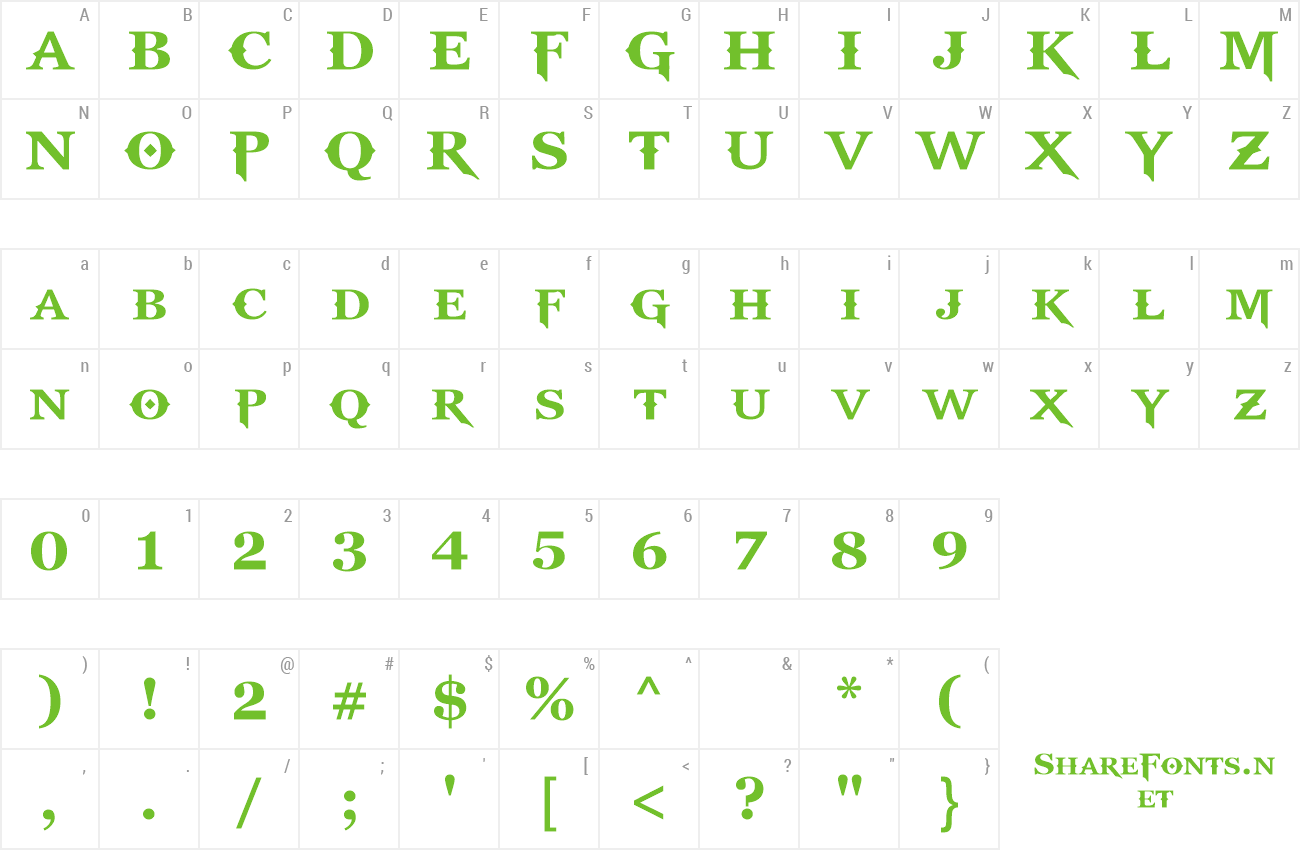
God Of War Font
God Of War Font - The lettering of the logotype is very similar to a font called god of war. This is the new and improved version of my god of war font replica! Web this font is not the original/official god of war font. You can download and use the font free for personal projects. Web god of war is a gothic, modern font. Click now to create a custom image with your own. The font is licensed as free for personal use. Web the logo of god of war is simply its logotype with an omega symbol in the center. Web god of war font | dafont.com english français español deutsch italiano português. Web free download of godofwar font.
The lettering of the logotype is very similar to a font called god of war. Web free download of godofwar font. This is the new and improved version of my god of war font replica! Web the logo of god of war is simply its logotype with an omega symbol in the center. The font is licensed as free for personal use. Web god of war is a gothic, modern font. You can download and use the font free for personal projects. Web god of war font | dafont.com english français español deutsch italiano português. Web this font is not the original/official god of war font. Click now to create a custom image with your own.
Web god of war is a gothic, modern font. You can download and use the font free for personal projects. The font is licensed as free for personal use. Web free download of godofwar font. This is the new and improved version of my god of war font replica! Web god of war font | dafont.com english français español deutsch italiano português. Web this font is not the original/official god of war font. Web the logo of god of war is simply its logotype with an omega symbol in the center. The lettering of the logotype is very similar to a font called god of war. Click now to create a custom image with your own.
You can download and use the font free for personal projects. Web this font is not the original/official god of war font. The font is licensed as free for personal use. Web god of war is a gothic, modern font. The lettering of the logotype is very similar to a font called god of war.
Web god of war font | dafont.com english français español deutsch italiano português. Click now to create a custom image with your own. The font is licensed as free for personal use. Web the logo of god of war is simply its logotype with an omega symbol in the center. The lettering of the logotype is very similar to a.
You can download and use the font free for personal projects. Web the logo of god of war is simply its logotype with an omega symbol in the center. Click now to create a custom image with your own. Web this font is not the original/official god of war font. The lettering of the logotype is very similar to a.
Click now to create a custom image with your own. Web the logo of god of war is simply its logotype with an omega symbol in the center. The lettering of the logotype is very similar to a font called god of war. The font is licensed as free for personal use. Web god of war is a gothic, modern.
The lettering of the logotype is very similar to a font called god of war. Web free download of godofwar font. Web this font is not the original/official god of war font. You can download and use the font free for personal projects. The font is licensed as free for personal use.
Web this font is not the original/official god of war font. This is the new and improved version of my god of war font replica! Web free download of godofwar font. Click now to create a custom image with your own. Web god of war font | dafont.com english français español deutsch italiano português.
The lettering of the logotype is very similar to a font called god of war. The font is licensed as free for personal use. Web the logo of god of war is simply its logotype with an omega symbol in the center. Web god of war font | dafont.com english français español deutsch italiano português. This is the new and.
Web god of war font | dafont.com english français español deutsch italiano português. Web free download of godofwar font. Web god of war is a gothic, modern font. The lettering of the logotype is very similar to a font called god of war.
Web this font is not the original/official god of war font. You can download and use the font free for personal projects. Web the logo of god of war is simply its logotype with an omega symbol in the center. The font is licensed as free for personal use.